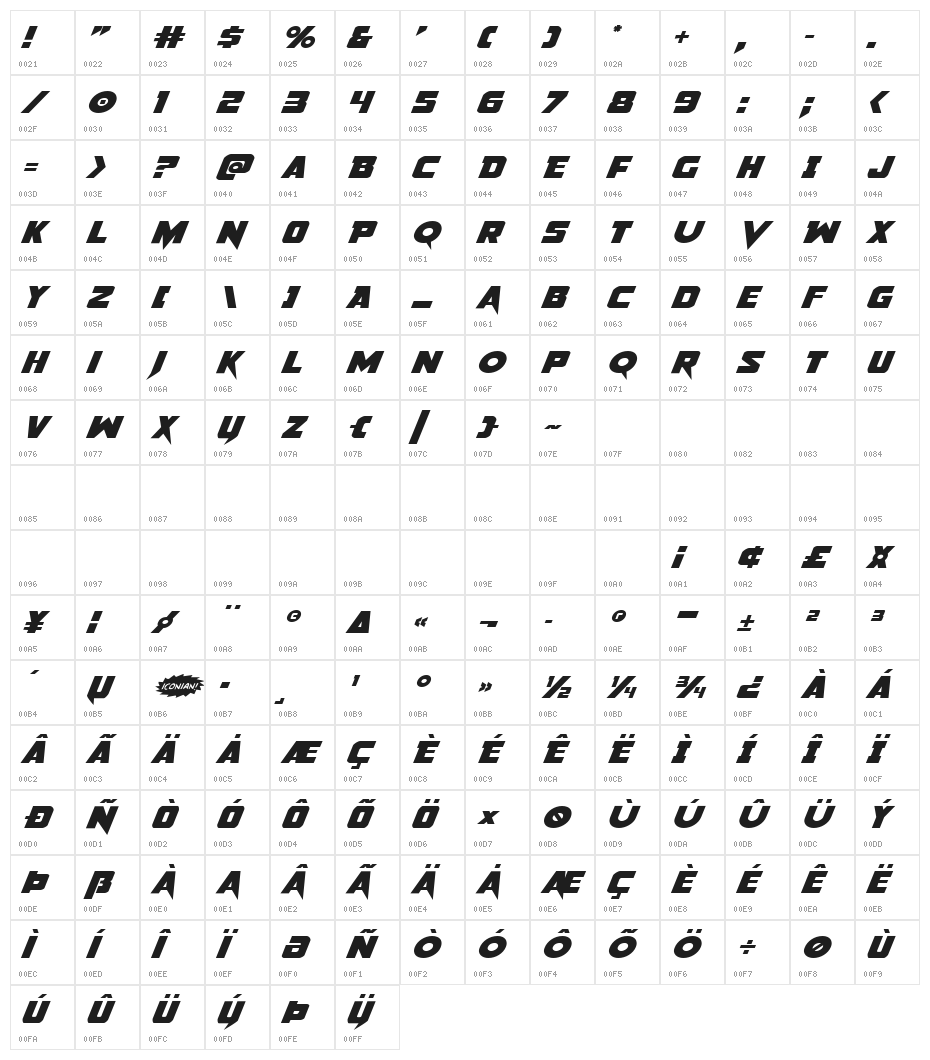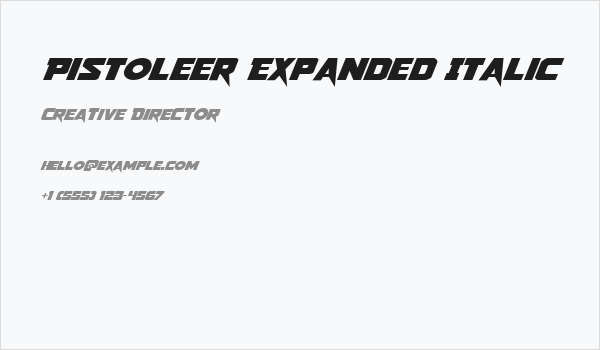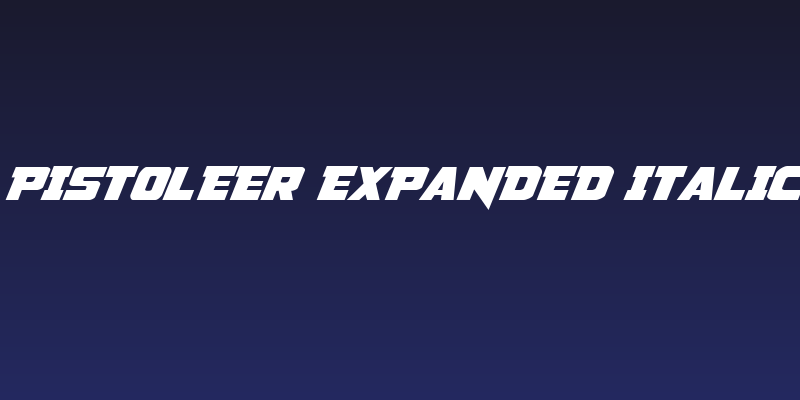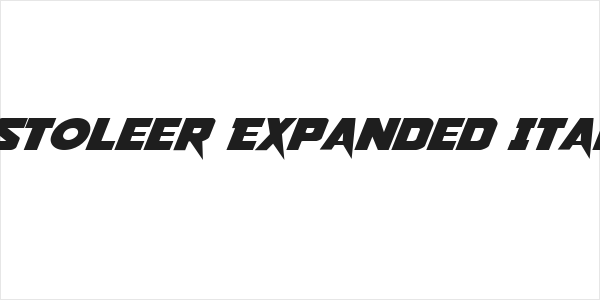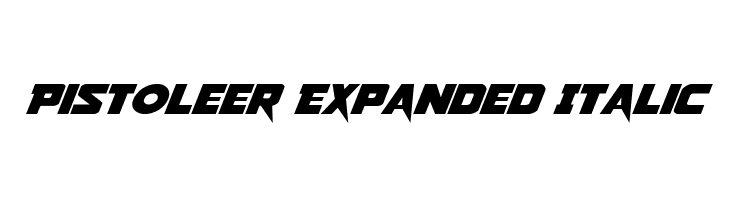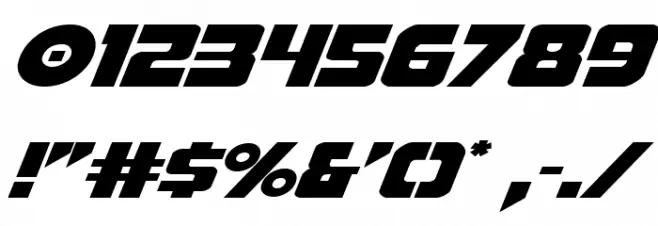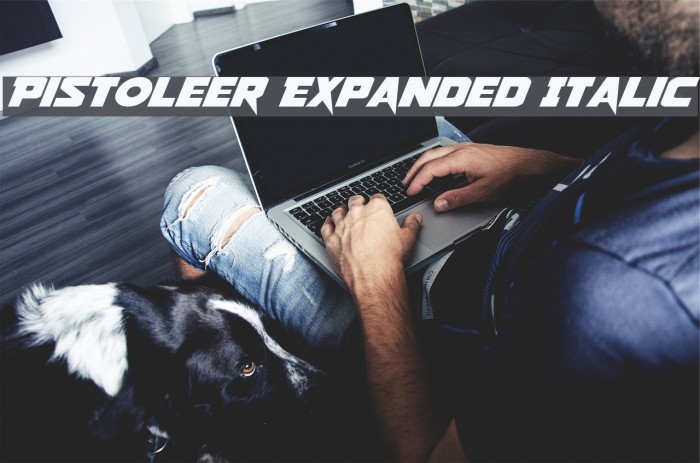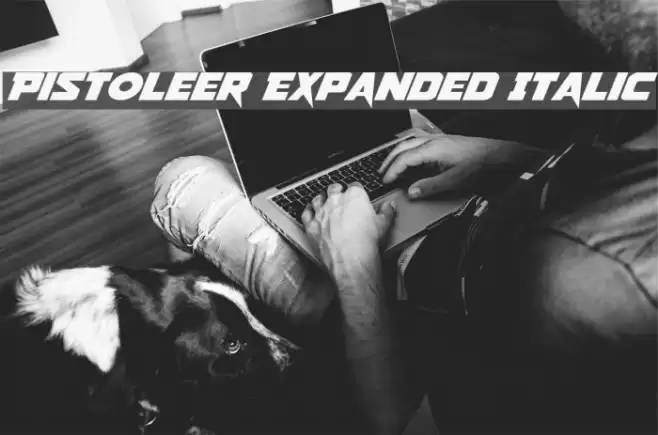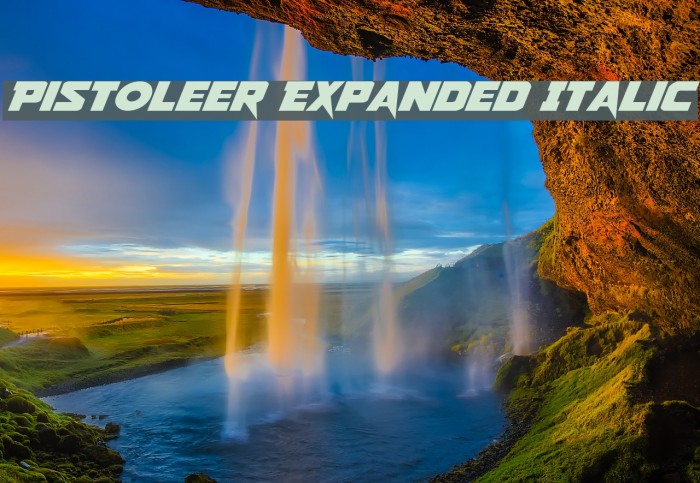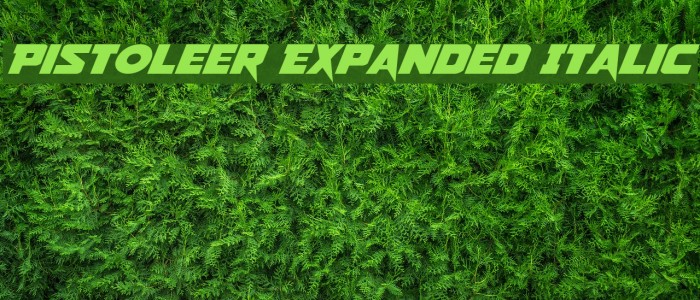
Pistoleer Expanded Italic Font
Pistoleer Expanded Italic Description
This font features a bold and dynamic style with a distinctly modern flair. The characters are sharply angled and italicized, giving a sense of movement and energy. The expanded width of the letters enhances its boldness, making it stand out prominently. The strokes are thick and consistent, contributing to a high contrast appearance. The design incorporates unique geometric elements, particularly noticeable in the angular cuts and sharp edges of the characters. This font is well-suited for projects that require a strong visual impact, such as sports branding, action-themed posters, or dynamic logo designs.
| Proposed Projects | Ideal for sports branding, action-themed posters, dynamic logos, and eye-catching headlines. |